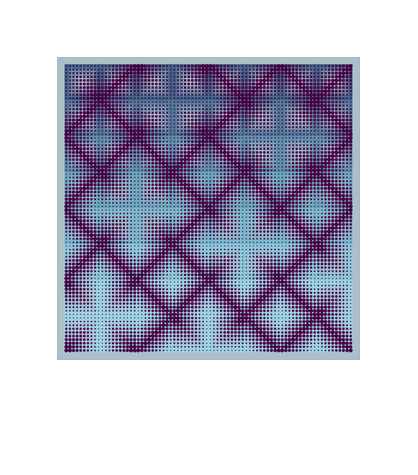
Forte (Blue/Blue)
From the Puzzler Prints series.
With Puzzler, Zuzana Licko revisits and expands upon some of her earlier forays into decoration and geometric constructions of abstract elements.
Licko created the Puzzler elements in digital font format, which she then used for composing these images.
Actual size detail from print.